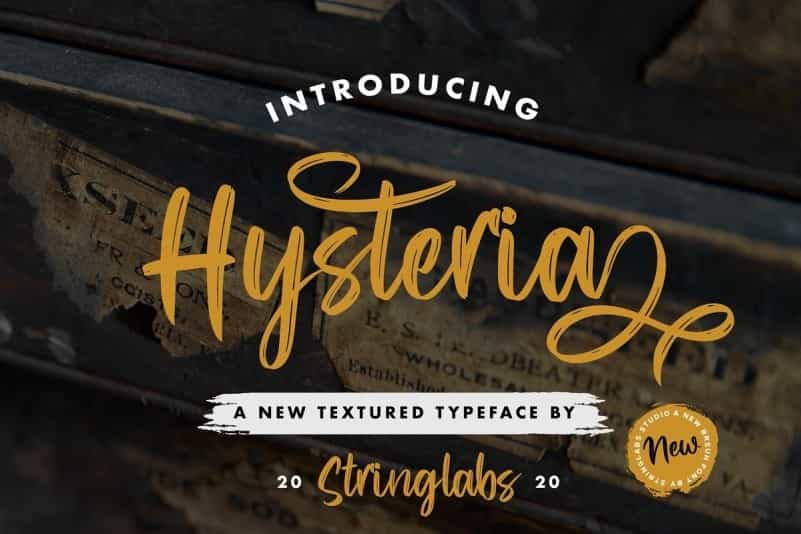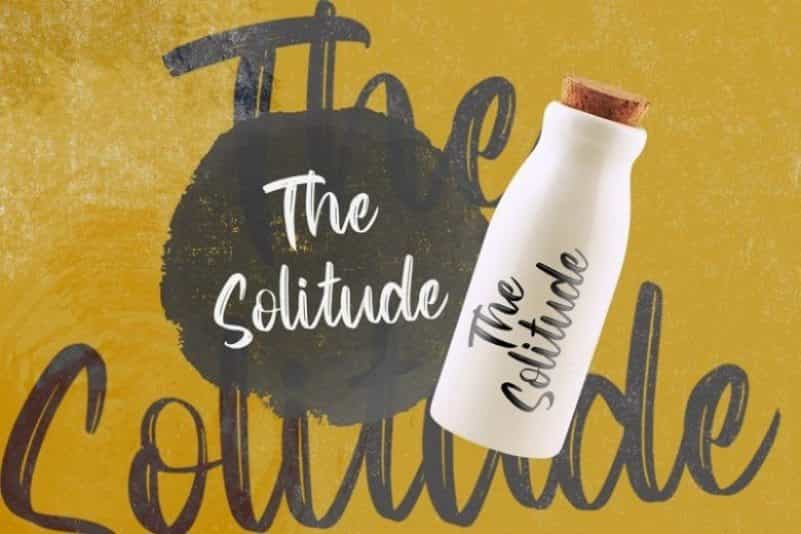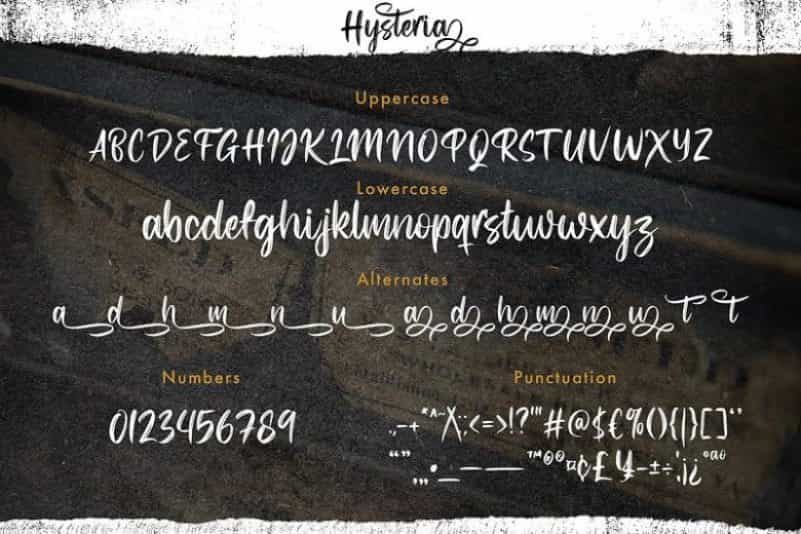
Hysteria is an Script Font featuring a Stylish texture. Brush Style. The Hysteria font has brush strokes made of digital technology, make this font appear authentic. This font is great for wedding invitations, business cards or logo signature, and finally calligraphy. The font is elegant Elegant, Contemporary Cool, and is an innovative concept.